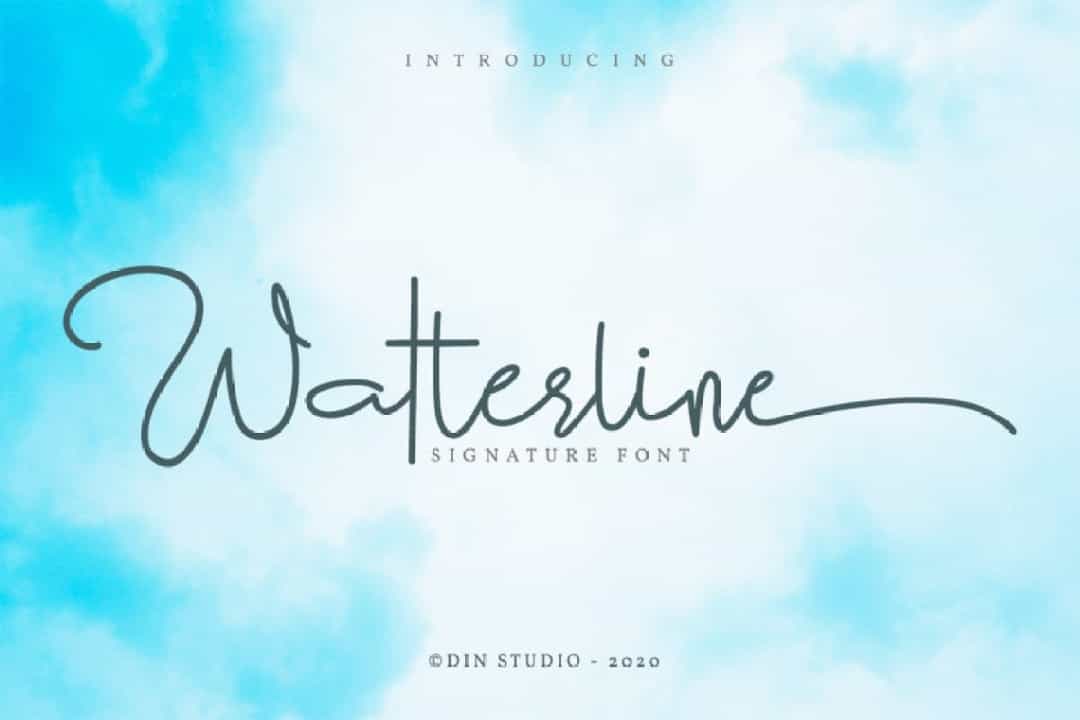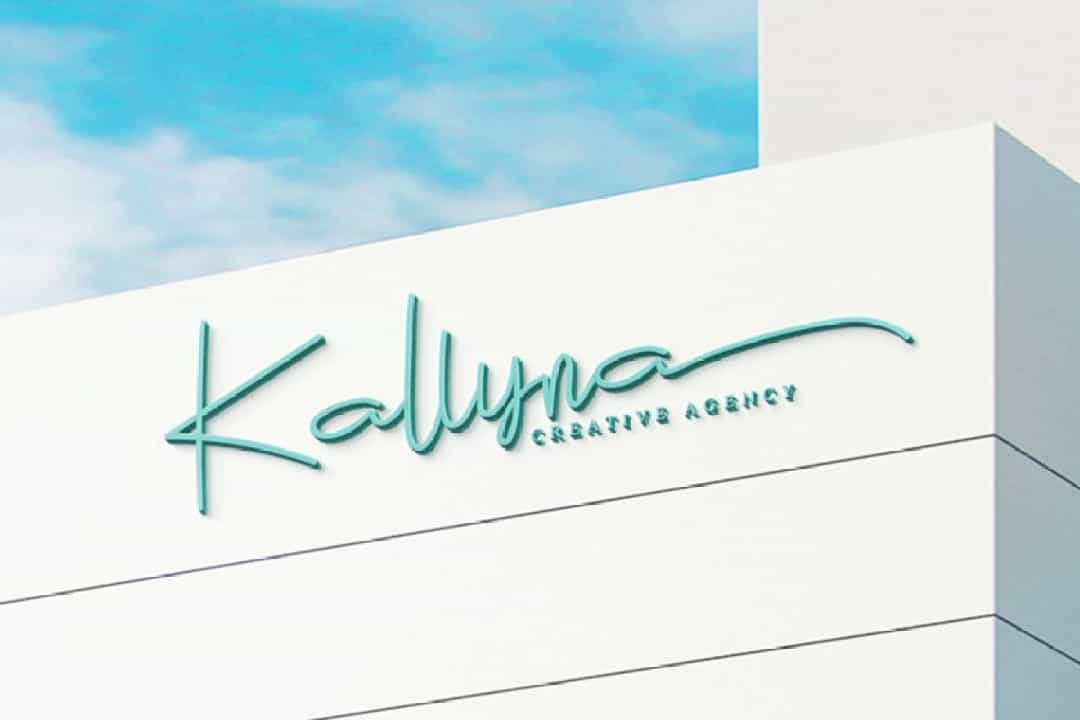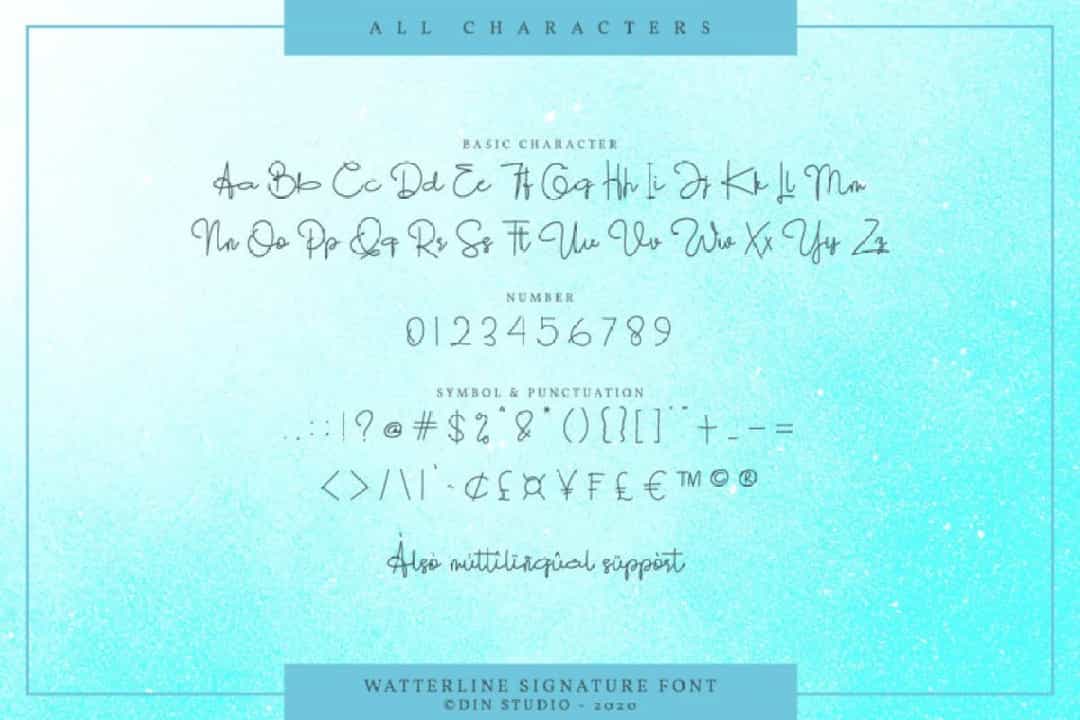
Discover Watterline Elegant Signature Script Font, part of the Handwritten Script Monoline collection—a versatile and unique font perfect for adding a personal touch to your projects. Download it for free and enjoy crafting designs with style, from invitations to social media posts. This font is available exclusively for personal use, giving you the freedom to create without limits. Unlock your creativity with Watterline Elegant Signature Script Font today!
Watterline is stylish and is designed as a signature typeface. It is suitable for all professional projects branding and other design purposes like logos and branding, modern advertising design, posters, quotes, book titles and covers, editorial websites/blogs, T-shirts, cards, etc to mention but a few; Watterline will definitely add value to your branding projects.